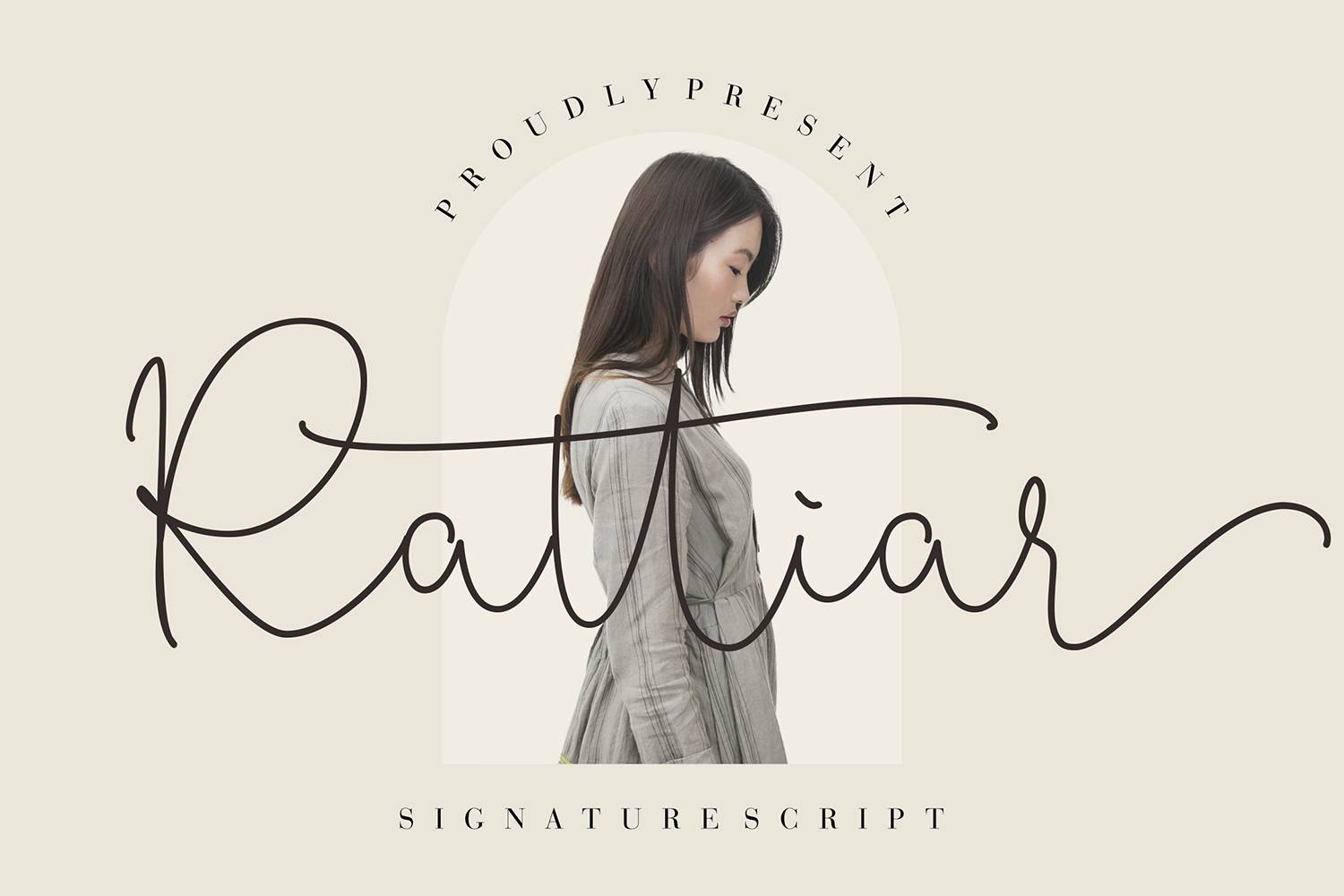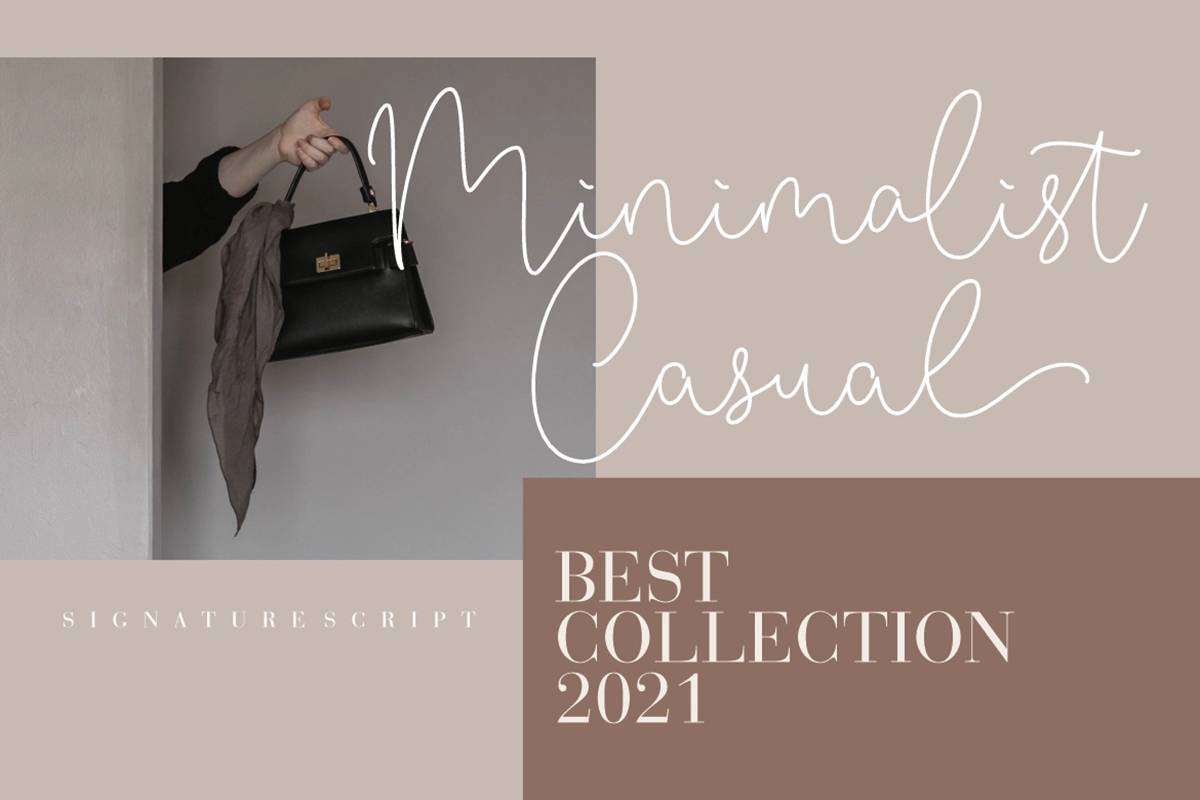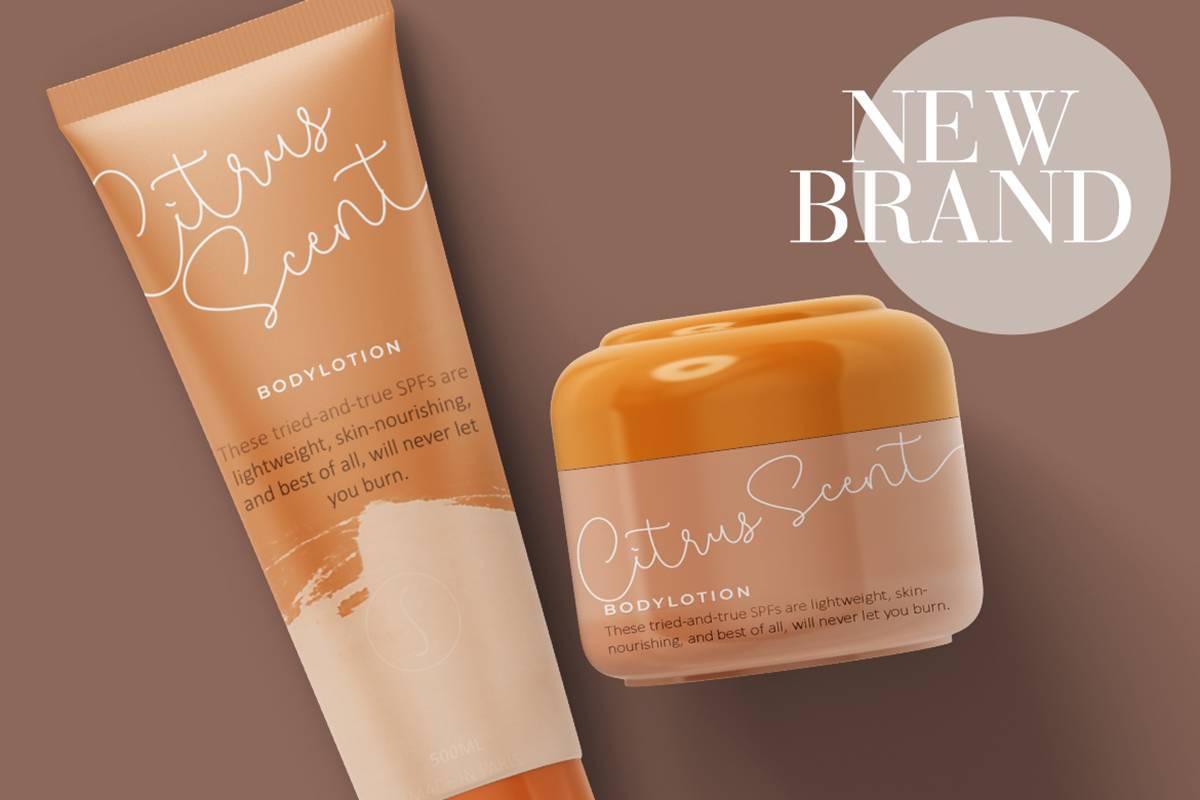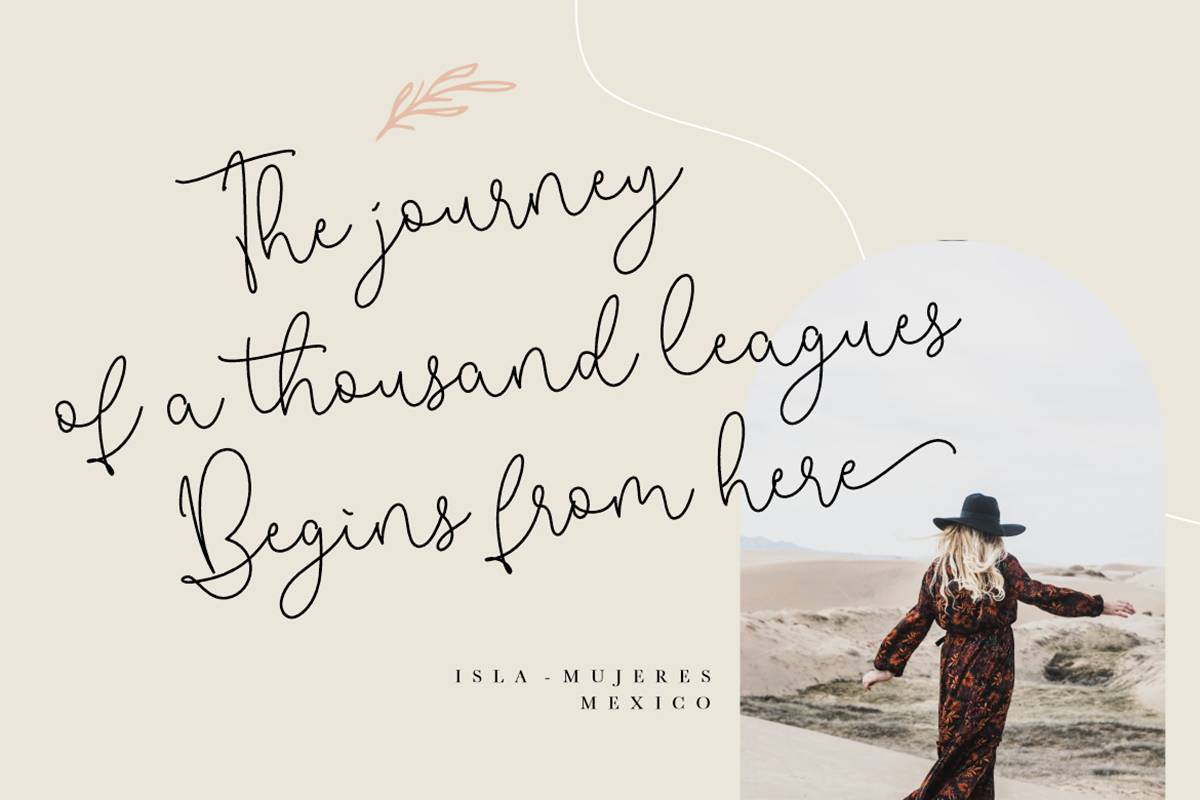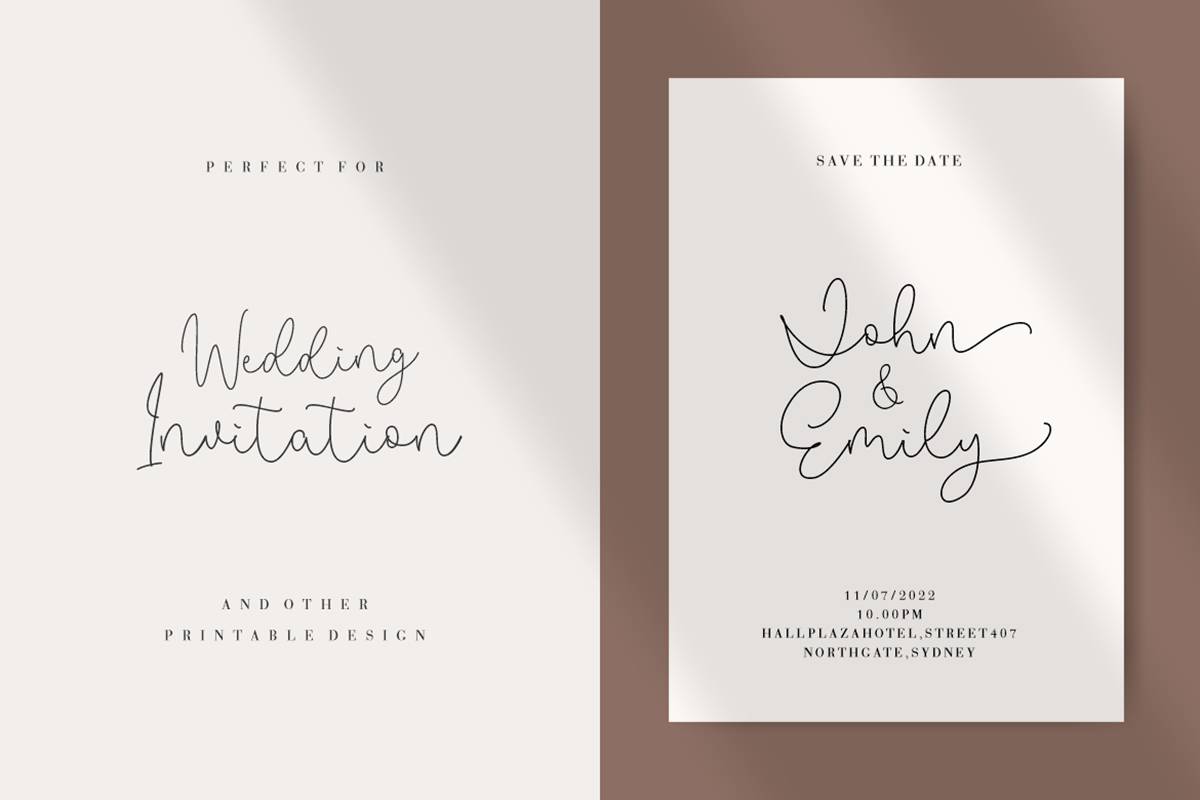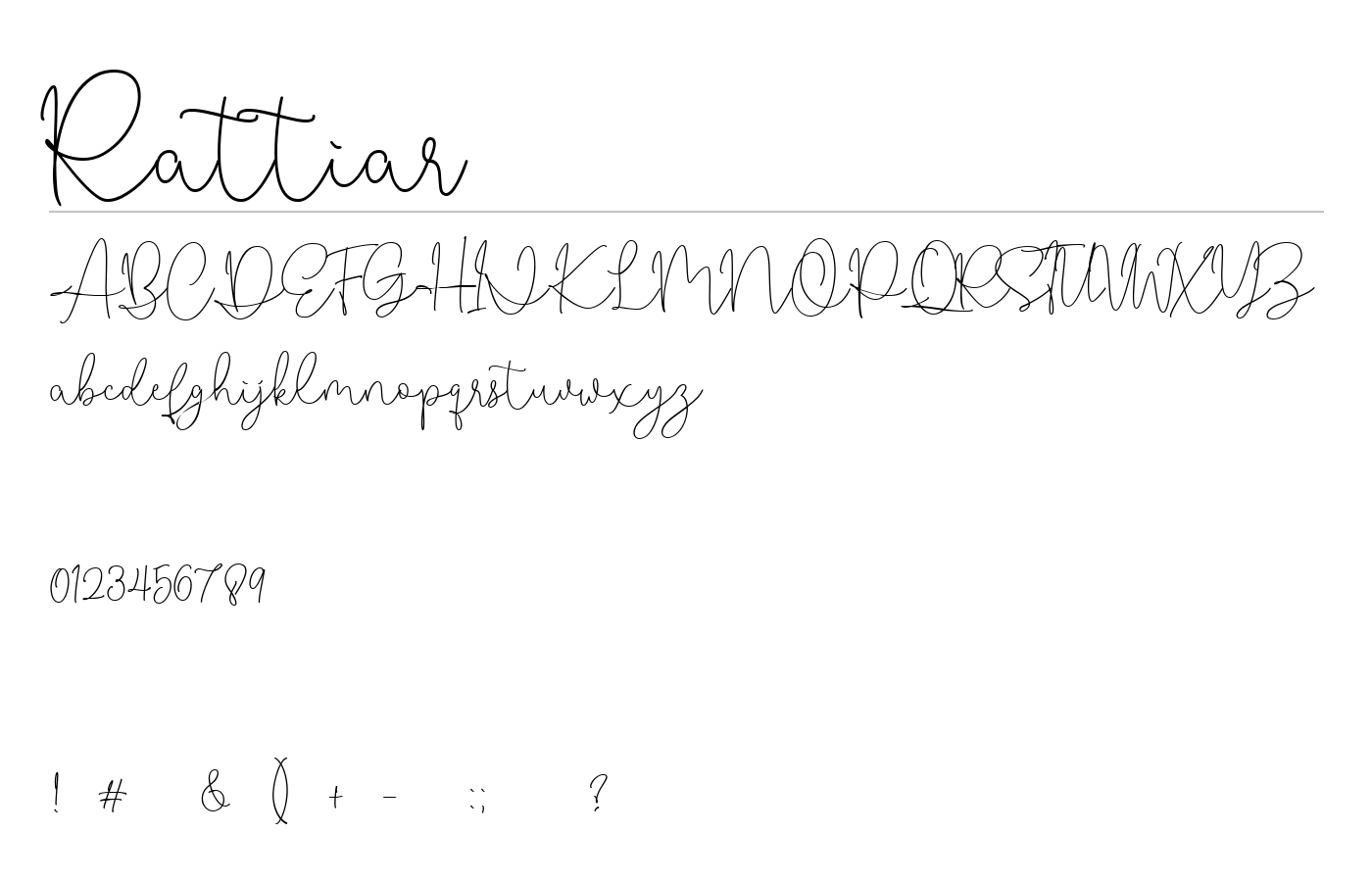
Rattiar is a delicate, hand-drawn script font featuring thin, flowing lines that lend it an elegant and whimsical personality. Its tall, slender letterforms with smooth curves and subtle loops create a refined yet approachable feel, making it ideal for invitations, branding, and creative projects that seek a personal, graceful touch. This font works beautifully in designs where a light, airy aesthetic and a sense of individuality are desired.
Rattiar Font
About Rattiar Font
| Font family | Rattiar Font |